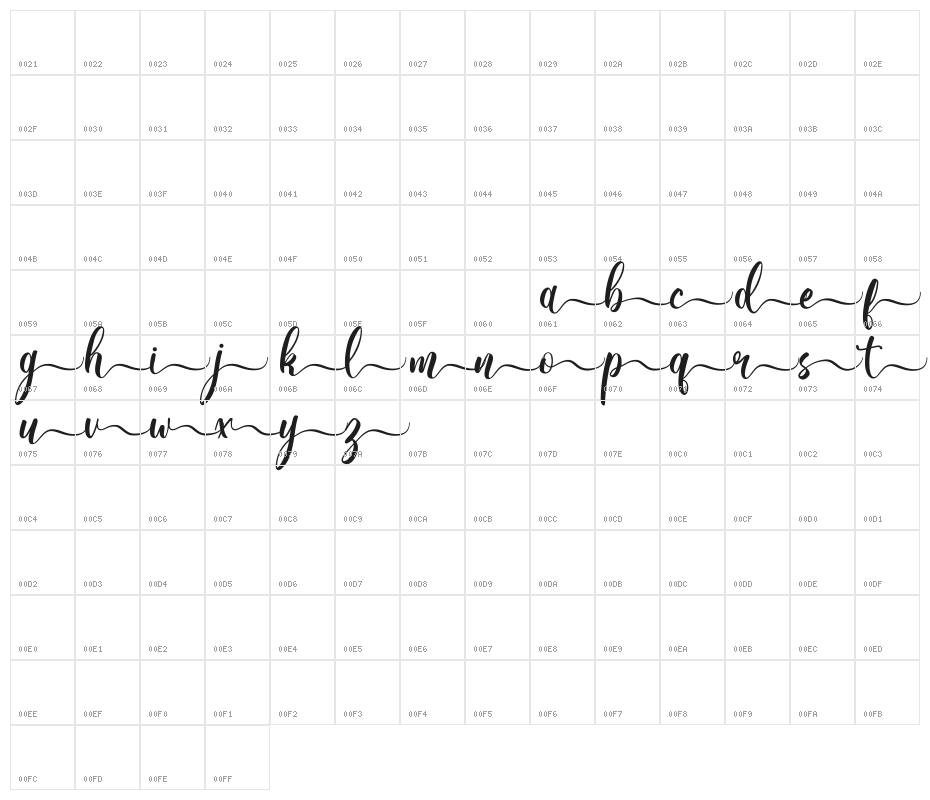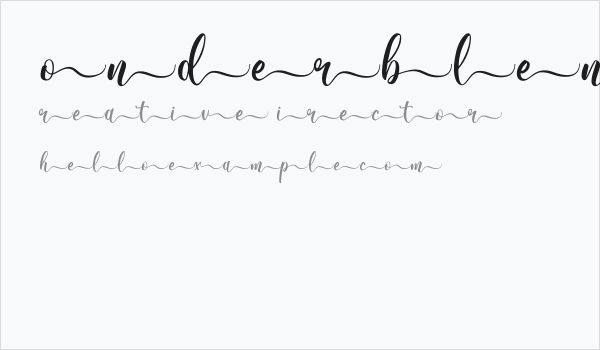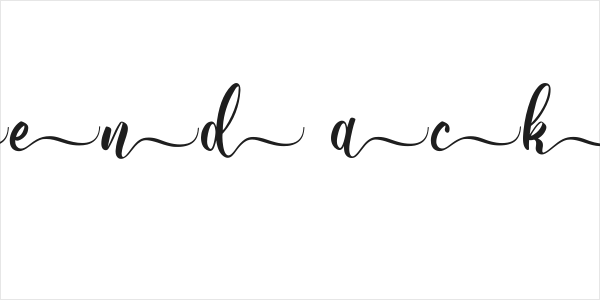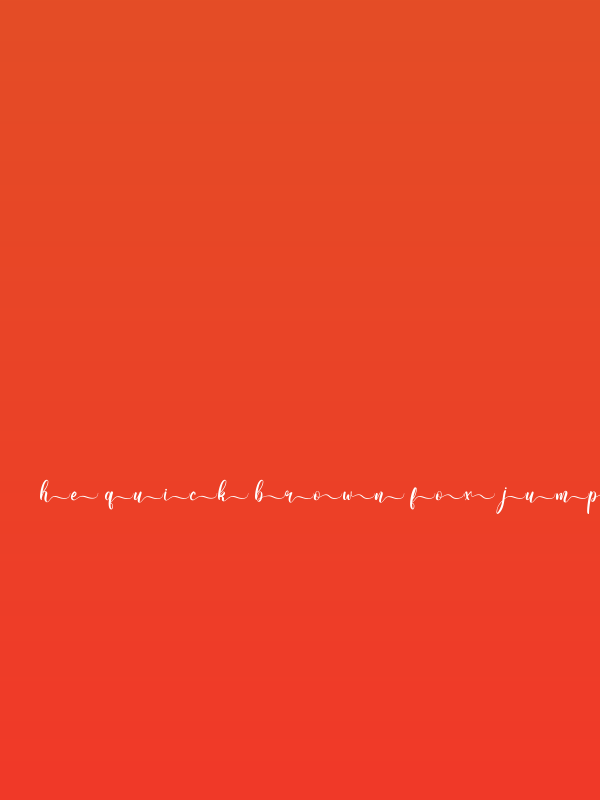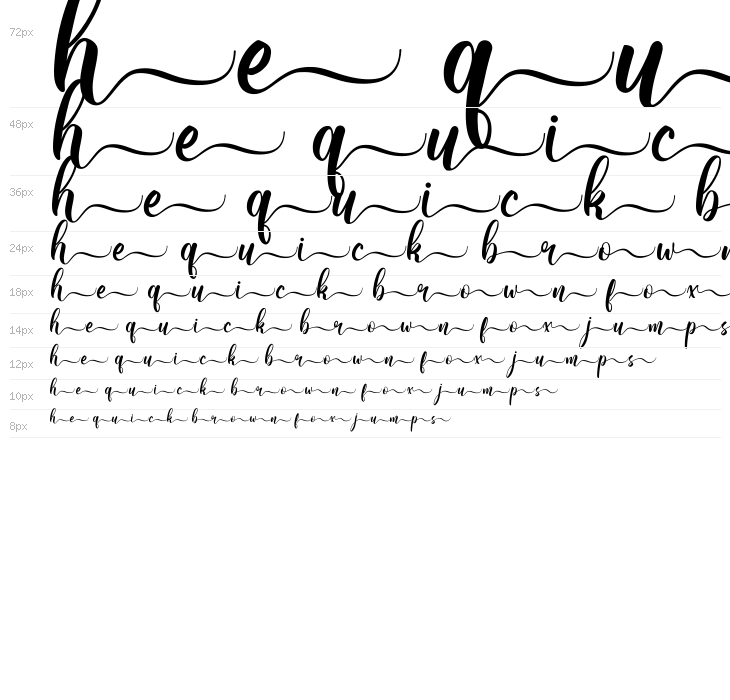
Wonderblend Back Demo Back Font
Wonderblend Back Demo Back Description
This font features a delicate and flowing script style, characterized by its elegant and continuous cursive strokes. Each letter is connected with a smooth, wavy line that adds a whimsical touch to the overall design. The font exudes a sense of grace and fluidity, making it ideal for projects that require a personal, handwritten feel. The lowercase letters are consistently styled, maintaining a harmonious balance throughout the alphabet. This font is perfect for creative designs that aim to convey elegance and sophistication.
| Overall Style | Elegant, Whimsical |